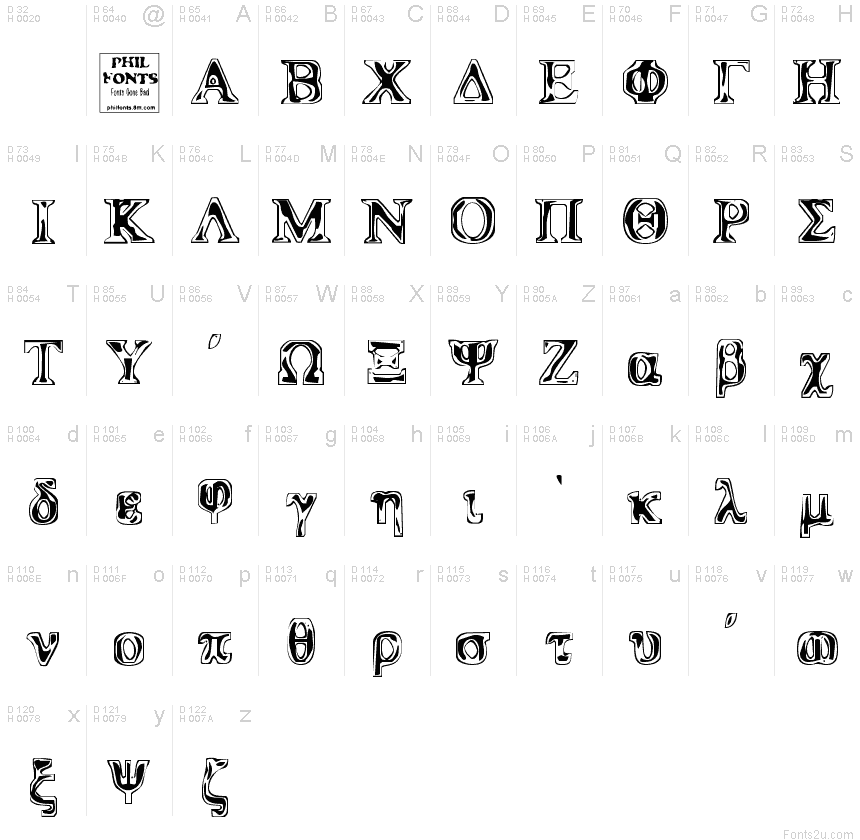
Parthenon by Phillip Andrade is a free outlined display serif modeled on weathered monumental lettering. Tall, flared forms and changing stroke widths are edged by loose inner contours, with dark, uneven wedges that resemble chips or deep cuts in stone.
Its classical archaeological reference makes it convincing for museum exhibitions, historical events, and fantasy game graphics rooted in ruins or ancient empires, where the broken outlines can echo weathered architecture, maps, carved props, and inscriptions. In publishing, it can turn a book cover or feature opener into an illustrated artifact, especially for stories about mythology, lost cities, or epic journeys.